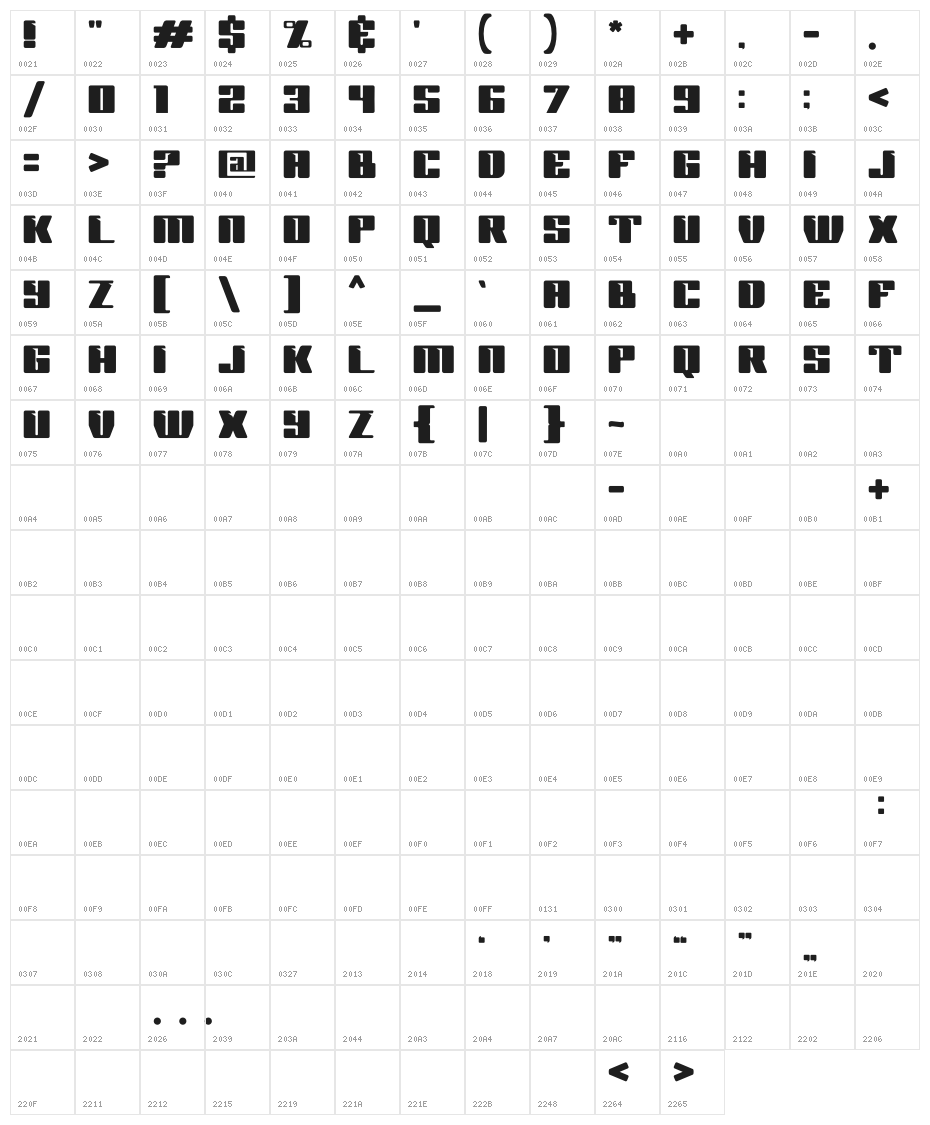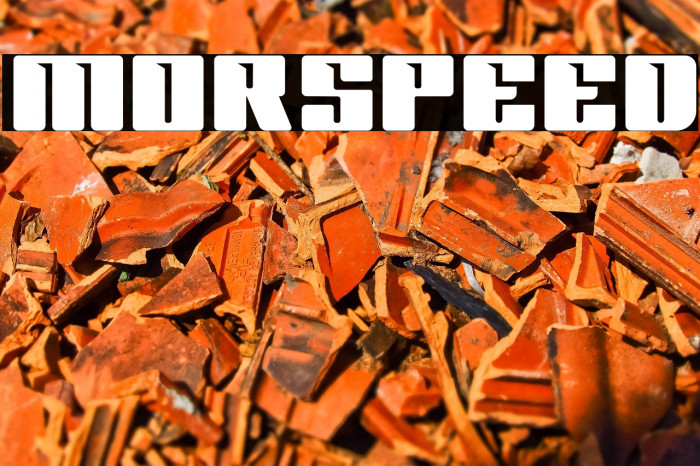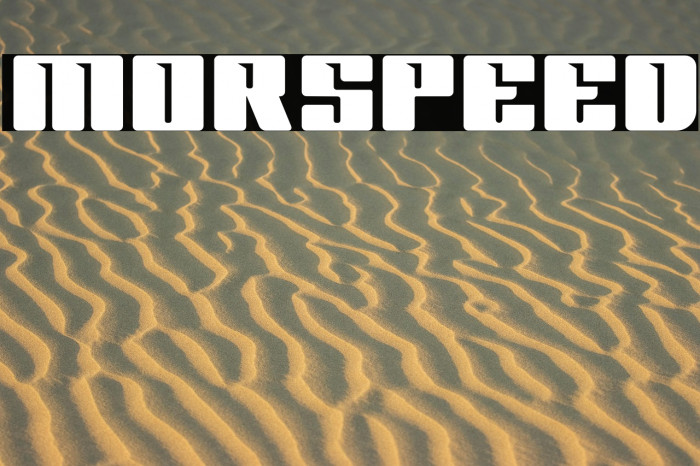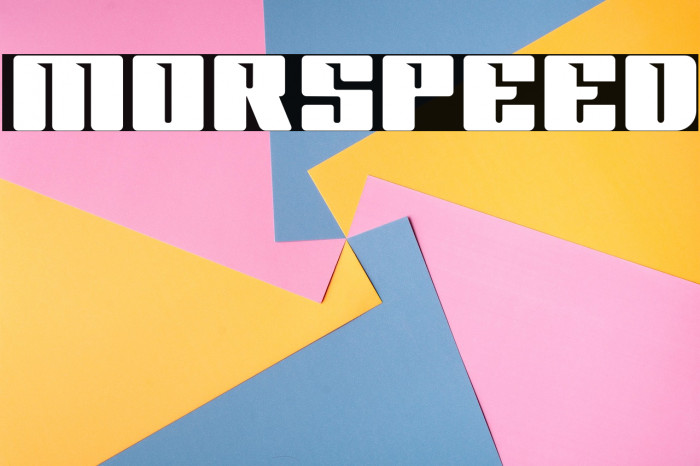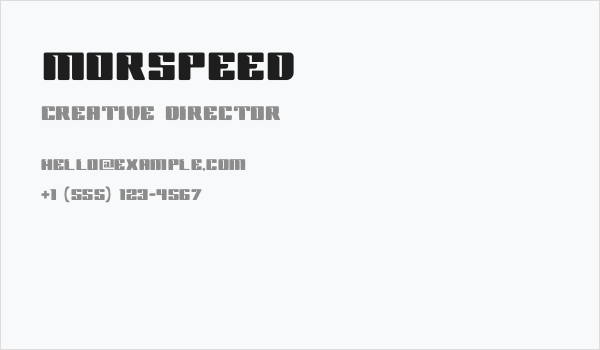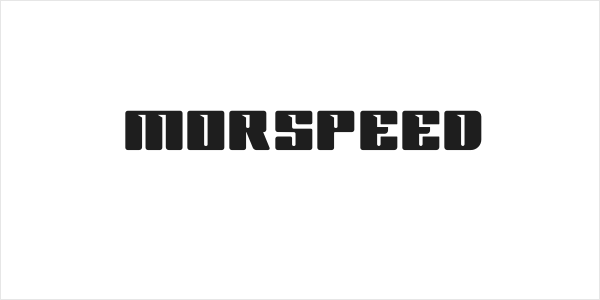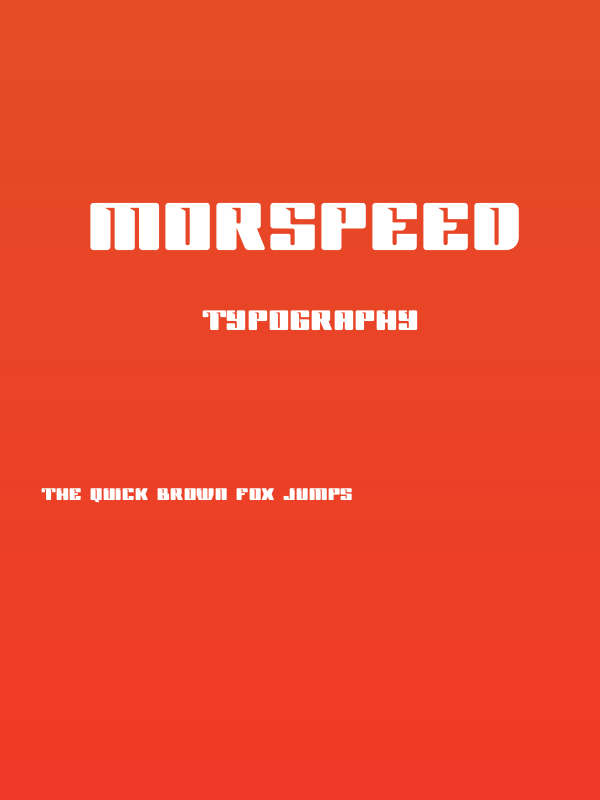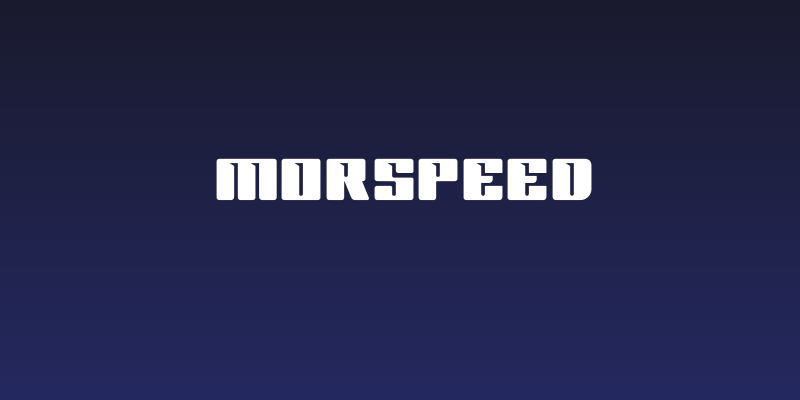
MORSPEED Font
MORSPEED Description
A bold, geometric display font with a strong, industrial feel. The characters are blocky with consistent stroke widths, giving a robust and impactful appearance.
| Overall Style | Modern, Industrial |
| Proposed Projects | Posters, headlines, branding, logos. |